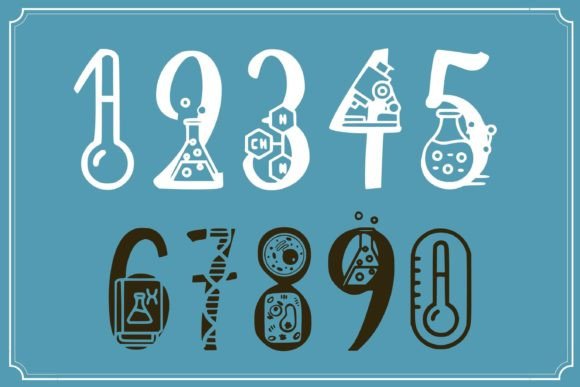
Introduction to Science Font
Remember that moment when you were working on a creative project and you just couldn’t find the right font to bring it all together? You scrolled through your font library, searching for something that would elevate your design and make it truly stand out. That’s exactly where Science Font comes in – a game-changing addition to any designer’s toolkit.
As a high-quality design resource, Science Font is perfect for any creative project that requires a touch of sophistication and style. Whether you’re working on branding projects, logos, or even t-shirt printing, this versatile font is sure to impress. And the best part? It’s available for free download, making it an accessible resource for designers of all levels.
With its unique aesthetic and transparent background, Science Font is an invaluable asset for designers looking to take their projects to the next level. Say goodbye to bland designs and hello to a world of creative possibilities with this amazing font.
Key Features of Science Font
- High-quality design resource ideal for creative projects, including scientific and educational materials.
- Features a transparent background, allowing for easy layering and composition in your design project.
- Available in multiple font sizes, including 12pt, 14pt, 18pt, and 24pt, to suit various design needs.
- Resolution: Optimized for high-resolution displays, ensuring crisp and clear text at 300 DPI and above.
- Unique characteristics include a clean, modern aesthetic and a robust set of scientific symbols, making it an excellent choice for projects requiring precision and accuracy.
Honest Review: Science Font
As a designer, I’m always on the lookout for high-quality design resources to elevate my creative projects. Recently, I stumbled upon Science Font, a free download that caught my attention. Let’s dive into what works well and what doesn’t.
- Unique and futuristic style that’s perfect for sci-fi or tech-themed projects
- Transparent background makes it easy to use on any background or design element
- Wide range of characters, including numbers, symbols, and punctuation
- Available in various font sizes and weights, making it versatile for different design needs
- Limited to uppercase letters, which might be a constraint for designers who need to use lowercase letters
Overall, Science Font is a solid addition to any designer’s toolkit. While it has some limitations, its unique style and high-quality design make it a valuable resource for creative projects. With some careful planning, it can be a great asset for designers looking to add a touch of futurism to their work.
Introduction to Science Font
Science Font is a high-quality design resource ideal for creative projects that require a touch of professionalism and sophistication. This versatile font is available for free download and can be used across various platforms, including Canva, Adobe Photoshop/Illustrator, and PowerPoint/Word.
Tips for Getting the Most Out of Science Font
To get the most out of Science Font, use it in combination with other high-quality design resources, such as images and graphics. Experiment with different font sizes, colors, and styles to create a unique look that suits your creative project. Additionally, use Science Font’s transparent background to create visually appealing compositions.
Common Use Cases for Science Font
Science Font is ideal for a variety of creative projects, including science and technology presentations, educational materials, and marketing campaigns. Its high-quality design and transparent background make it a versatile resource for designers and non-designers alike.